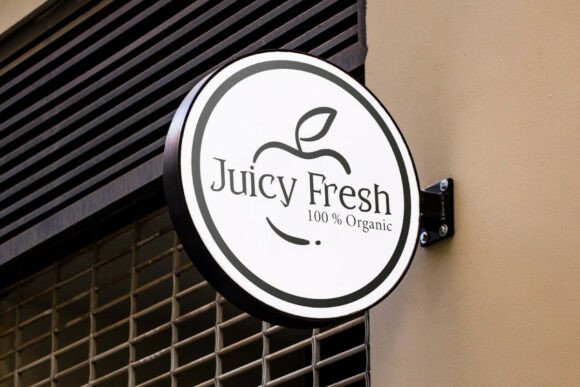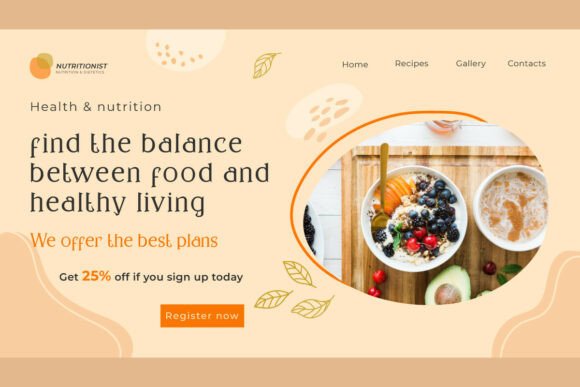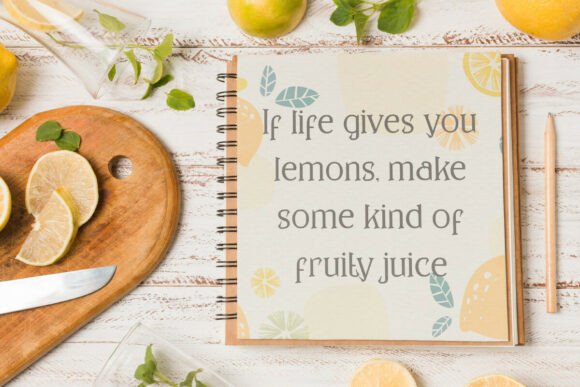
Introduction to Iced Lemon Font
Iced Lemon is a refreshingly clean and contemporary Serif Font designed to infuse your projects with a fun, bright, and cheerful impression.
Inspired by the joy of summer days and citrus coolers, Iced Lemon offers a unique blend of classic elegance and modern, friendly charm Its delightful, rounded serif style gives each character a pleasant and engaging personality.